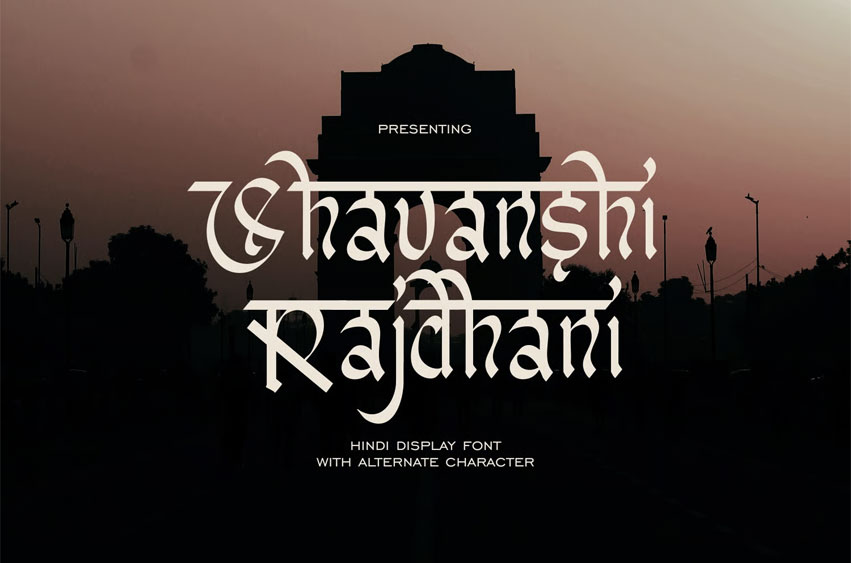
Shavanshi Rajdhani Font
Shavanshi Rajdhani Font is a Hindi display font inspired by the elegance and heritage of traditional Devanagari script, seamlessly blending Latin letterforms with the artistic essence of Hindi calligraphy. Each character features exquisite strokes, dynamic top lines, and graceful sweeps that reflect the rich artistry of South Asian calligraphy.
Designed for headlines that demand an authentic, culturally nuanced aesthetic, this font is perfect whether you’re creating for fashion, jewelry, Bollywood film titles, museum exhibits, documentaries, heritage tourism, or festive traditions such as Guru Nanak, Dussehra, Navratri, Ayudha Puja, Karva Chauth, Raksha Bandhan, Visakhi, Navratri, Deepavali, and the vibrant cultural tapestry of Indian festivals.